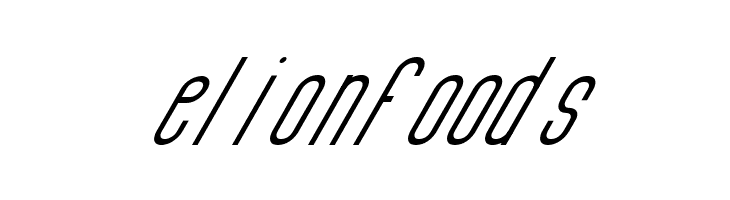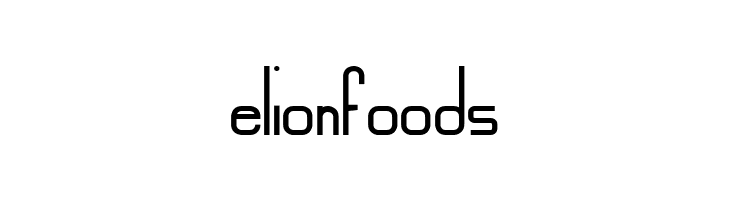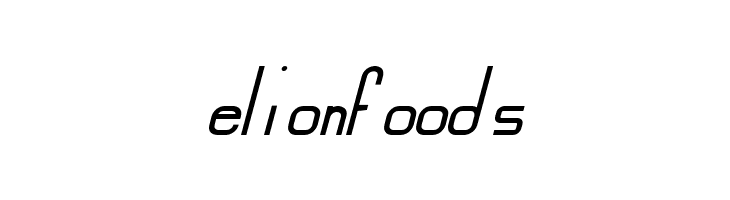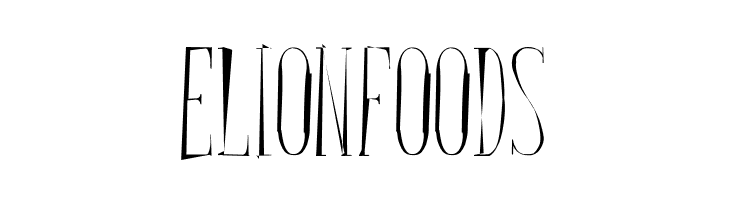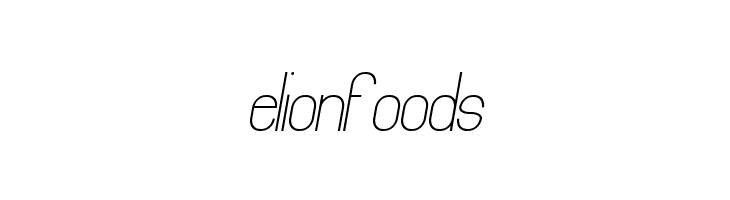
A modern, italic font with elongated, narrow characters.
A modern, sleek font with elongated, rounded characters and a futuristic feel.
A sleek, modern italic font with elongated characters and consistent stroke width.
A modern, minimalist font with thin, elongated strokes and geometric structure.
A decorative, high-contrast font with elongated, narrow letterforms and sharp serifs.
A sleek, modern italic font with thin, elongated letterforms.
A sleek, modern font with elongated, thin strokes and a sophisticated appearance.
A sleek, modern font with elongated, narrow characters and a clean aesthetic.
A bold, elongated font with a vertical emphasis and consistent stroke width.